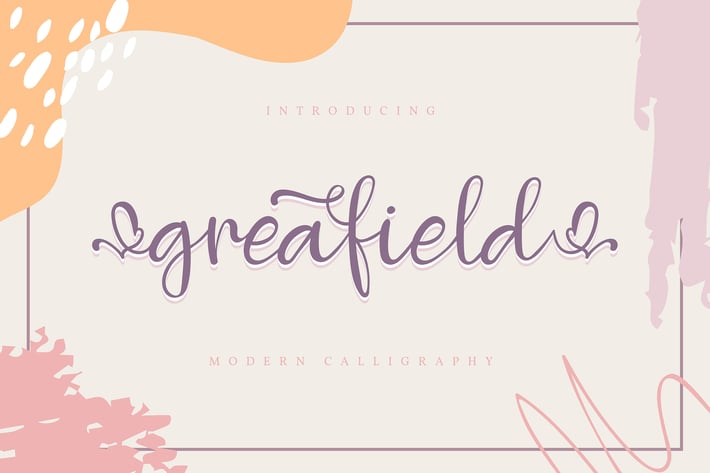
Greafield | Modern Calligraphy Font
Greafield | Modern Calligraphy Font with a calligraphy style, So beautiful on invitation like greeting cards, branding materials, business cards, quotes, posters, and more!